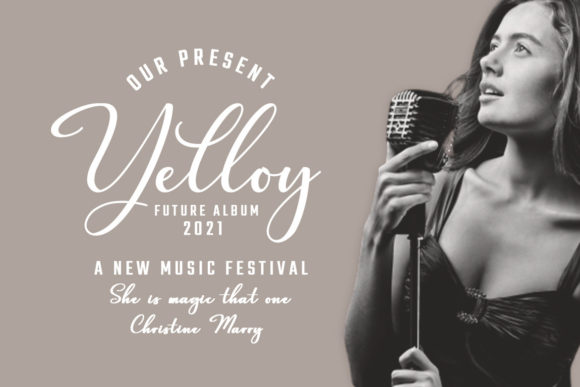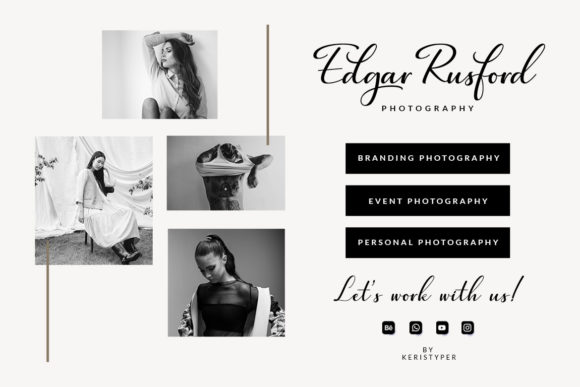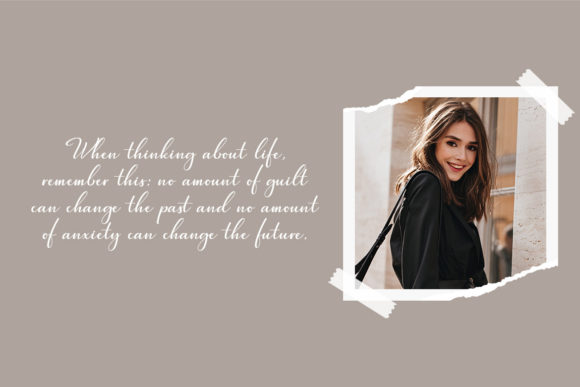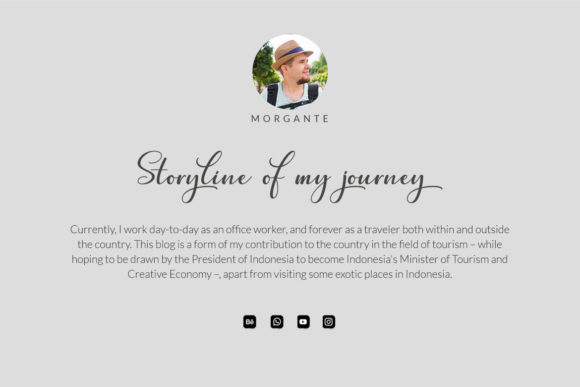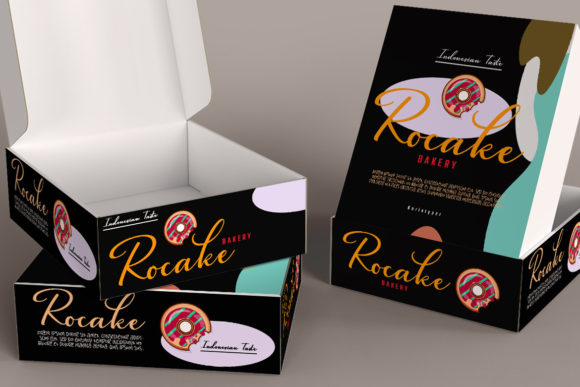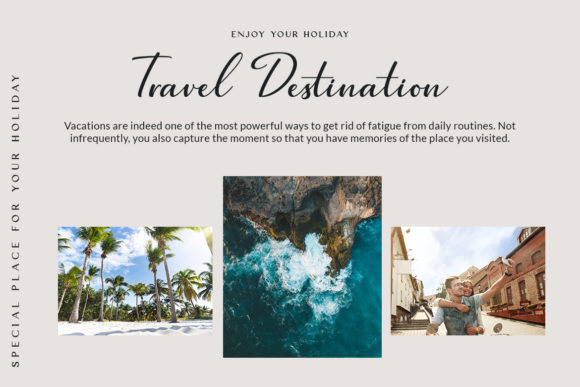
Introduction to Dayna Silva Font
Dayna Silva is a modern handwritten script font designed with lovely touches.
Dayna Silva will work perfectly for fashion, e-commerce brands, trend blogs, wedding boutiques or any business that seeks to appear upscale and chic .
Key Features of Dayna Silva Font
Why Choose Dayna Silva Font?
Dayna Silva Font offers exceptional quality and versatility, making it a valuable addition to your design toolkit. Whether you’re creating for personal projects or commercial use, Dayna Silva Font delivers professional results.